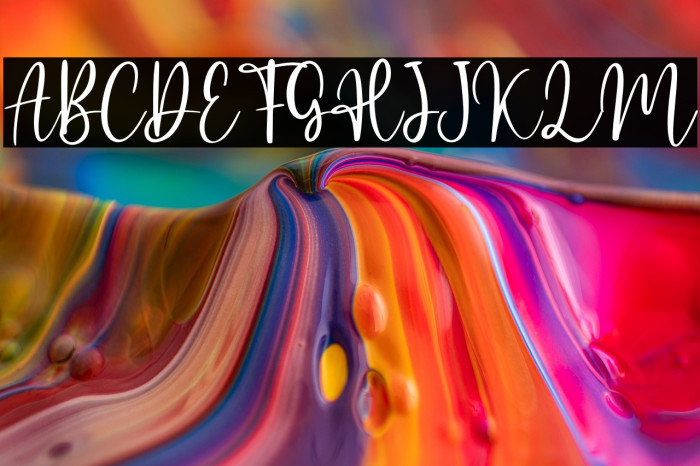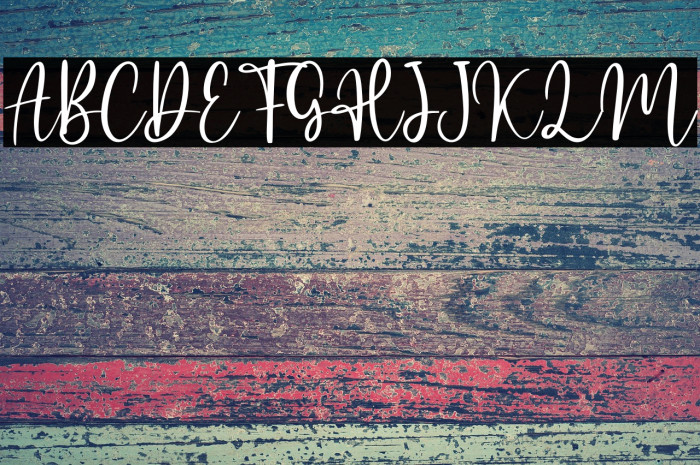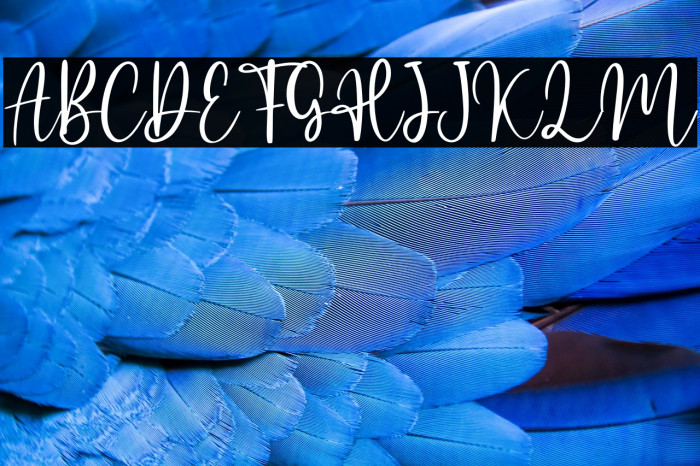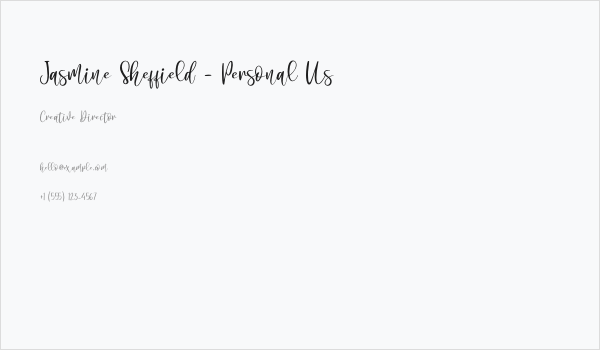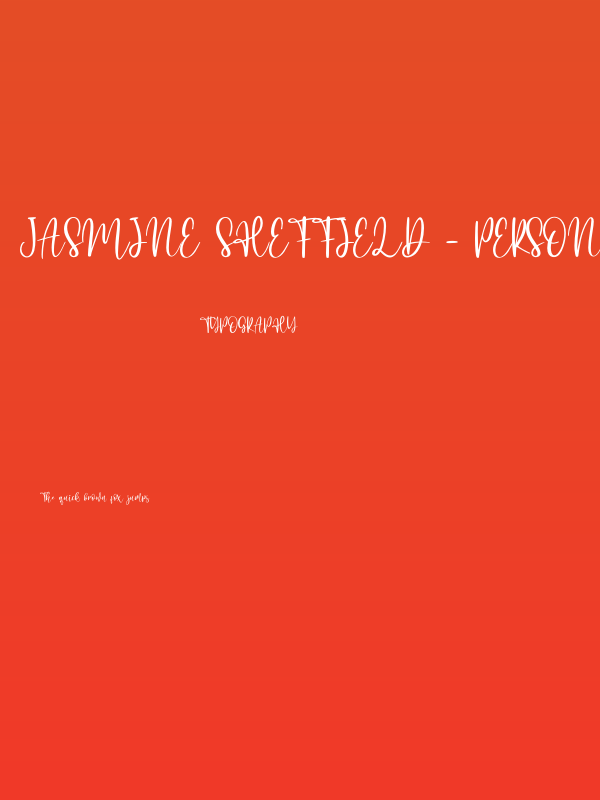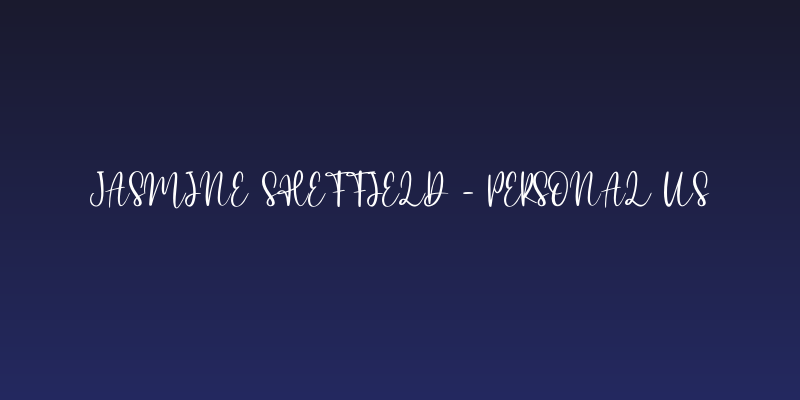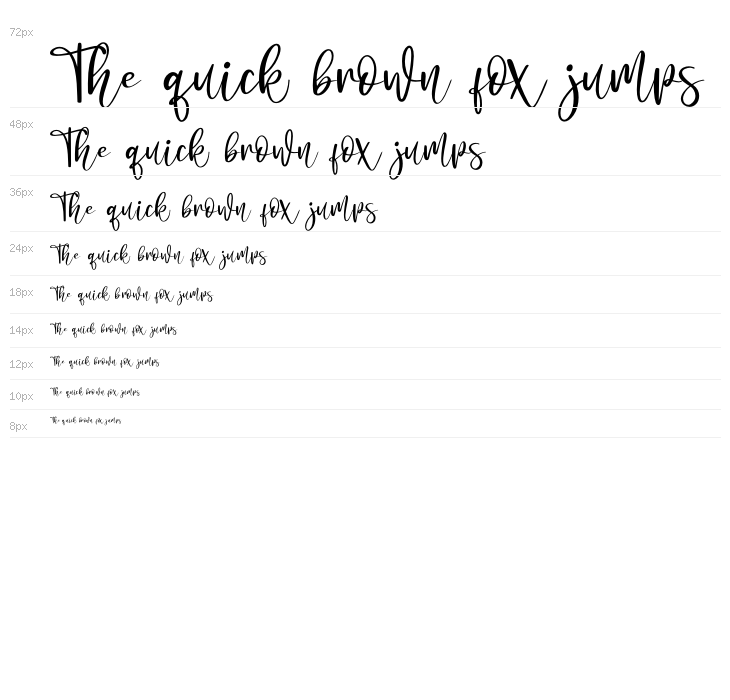
Jasmine Sheffield - Personal Us Font
Jasmine Sheffield - Personal Us Description
This font features a lively and flowing script style, characterized by its elegant and cursive letterforms. The uppercase letters are bold and expressive, with sweeping curves and loops that give a sense of movement and grace. The lowercase letters maintain a consistent style, with a slightly more compact and connected appearance, enhancing the fluidity of the text. The numerals are clear and legible, maintaining the same playful and dynamic style as the letters. Special characters are thoughtfully designed to match the overall aesthetic, ensuring a cohesive look across all elements. This font is perfect for projects that require a personal and artistic touch, such as invitations, greeting cards, or branding materials.
| Proposed Projects | Ideal for invitations, greeting cards, branding, and artistic projects. |